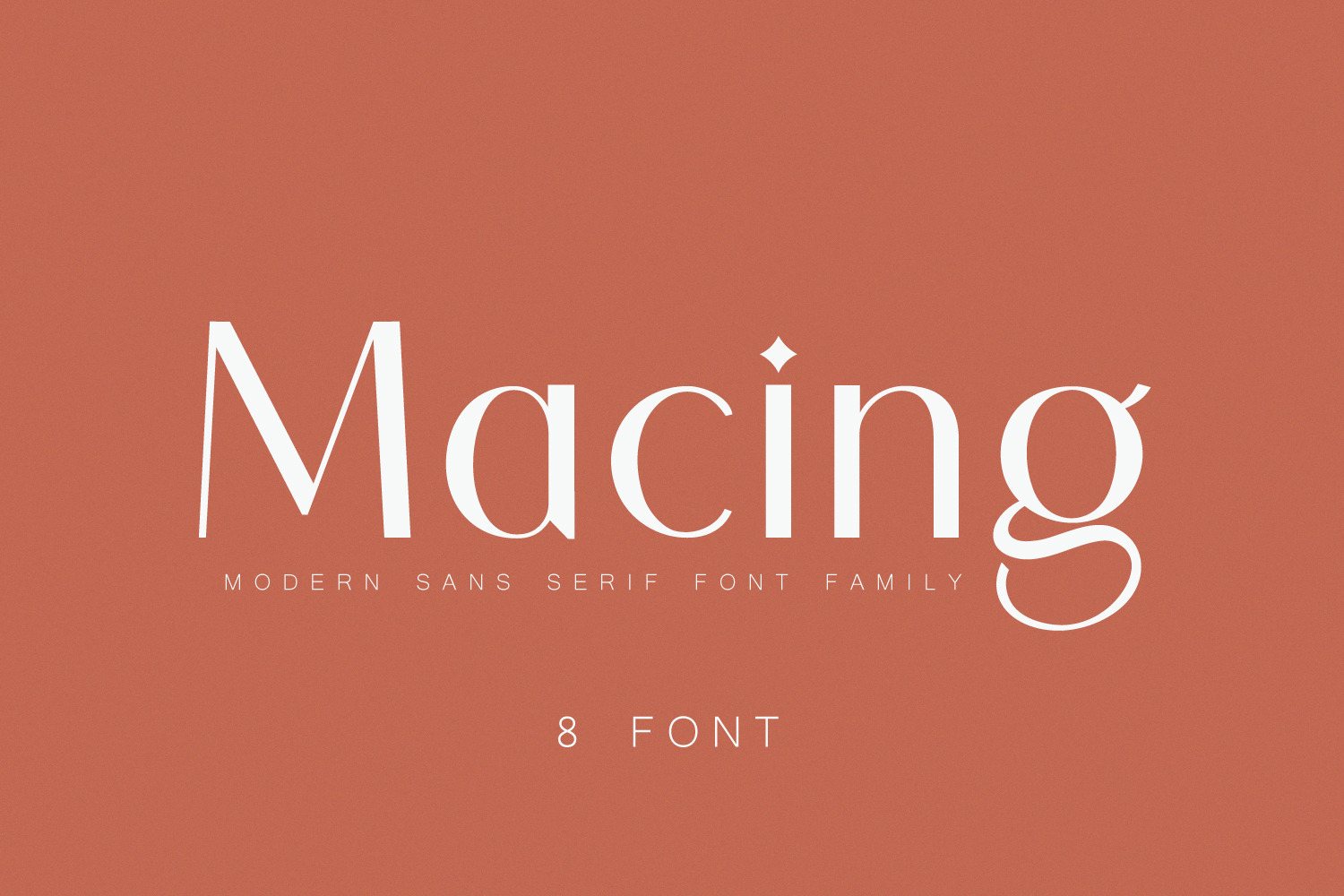
Macing - Modern Sans-serif Font
Macing is a gorgeous sans-serif typeface consisting of 8 weights that is both classically elegant and inherently modern.
Macing is perfect to create beautiful wedding invitations, use it as an elegant solution for your next magazine layout, branding projects, Logo design, product packaging, and more!